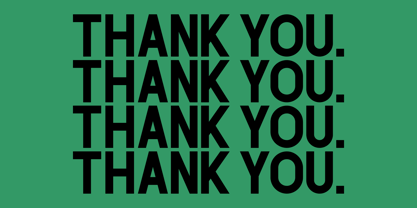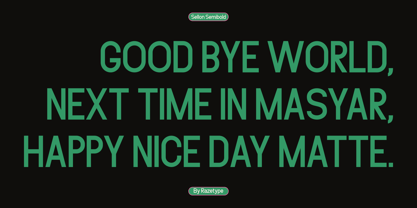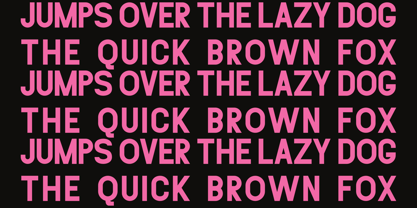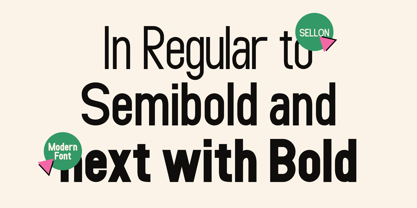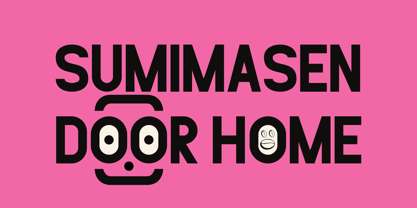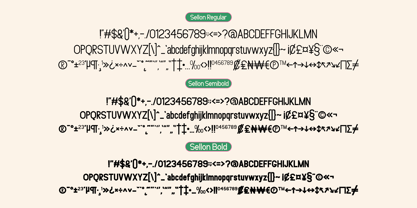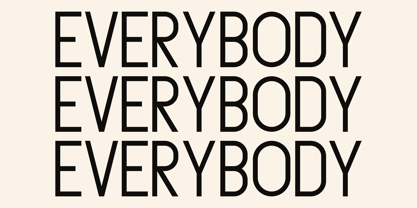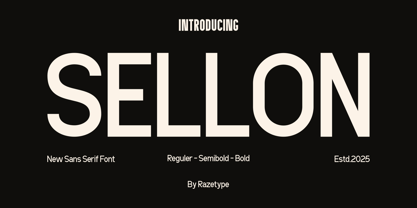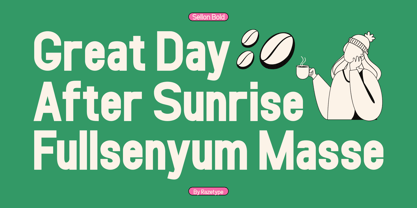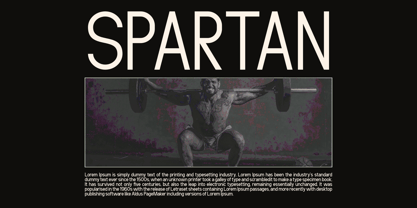
Sellon
by Razetype
The Sellon Font Family was designed by Ahmad Faizal and published by Razetype. Sellon contains 3 styles and family package options. More about this family
Sellon is a contemporary sans serif typeface that embodies clarity, precision, and modern elegance. Designed in three distinct weights — Regular, Semibold, and Bold — it offers exceptional adaptability for both print and digital mediums. Its refined geometric shapes, complemented by subtle humanist curves, provide a harmonious blend of strength and approachability, making it suitable for a wide spectrum of creative and professional uses. This typeface excels in delivering impactful headlines, sleek editorial layouts, and highly legible body text. In larger displays, Sellon conveys confidence and authority, while in smaller applications it retains impeccable readability. The balanced proportions and consistent letterforms allow for seamless integration across branding systems, product packaging, marketing campaigns, and user interface designs. Versatile and timeless, Sellon is ideal for projects that demand a clean and modern visual identity. Whether used in corporate branding, lifestyle promotions, or creative editorial work, it ensures that every composition stands out with sophistication, clarity, and a contemporary edge.
Designers: Ahmad Faizal
Current Foundry: Razetype